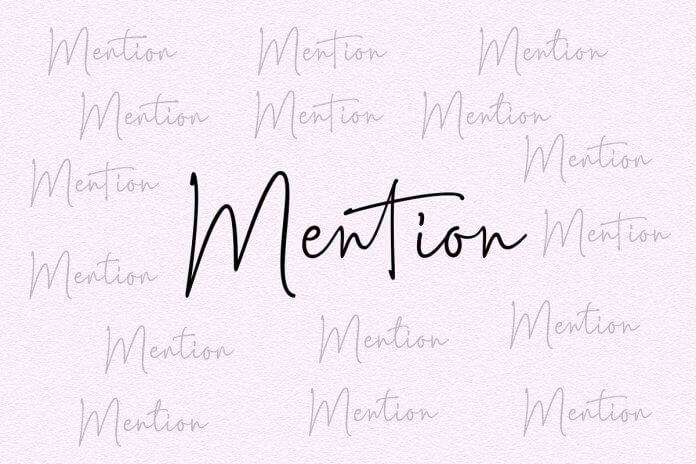
Today, I’m going to show you a fantastic Script and Handwritten font called Mention Signature Font, which was recently updated on January 6, 2019. Mention Signature Font is a Personal Use Only font! This typeface has it all starting with uppercase, lowercase, numeric, and some special characters and alternatives. This is a natural-flowing modern handwritten signature script. Meutuwah created and shared it. Mention is a stunning modern signature font that combines the look of old calligraphy with a more contemporary look.
The font is a blend of copperplate and contemporary typefaces with a dancing baseline, giving it a sophisticated and elegant feel. The font is available in two formats which are TTF and OTF. You can use this Script and handwritten font in any signature-based work, as the name suggests. You can use it on the cover of any book where the author wants to include a signature. The font also might get used in any handwriting project as well.
Mention Signature Font is great for logos, branding, invitations, stationery, wedding designs, logos, business cards, covers, t-shirts, social media posts, and more. It will also be utilized to generate a stunning image and text in a variety of colors and styles.